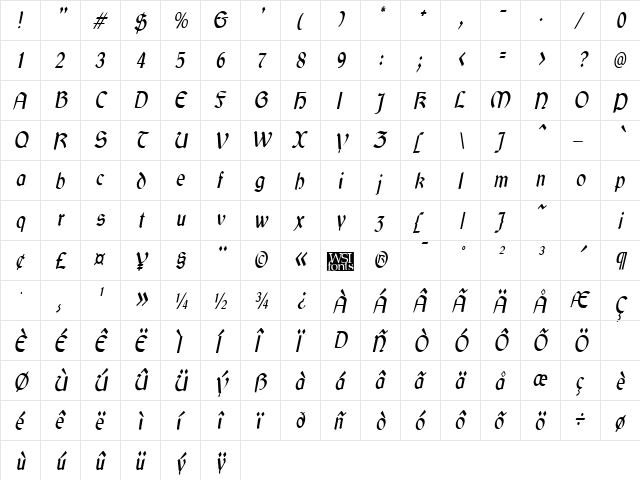
GaelicCondensed Italic Font Preview
Design Context for GaelicCondensed Typeface
GaelicCondensed is a composed and adaptable typeface that performs quietly and consistently across a wide range of design contexts. The dynamic lean of this cut emphasises speed and emphasis in any layout. The condensed width makes it efficient for tight spaces without sacrificing legibility.